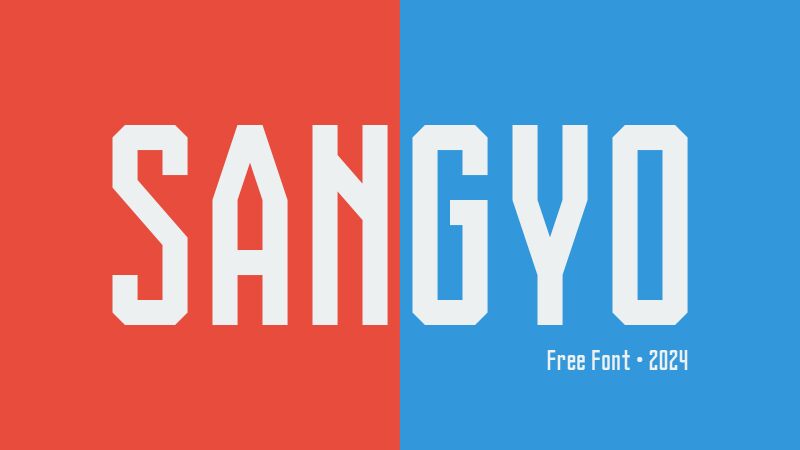
Sangyo Italic font by GGBotNet is a condensed font with an angular, geometric, and futuristic style. Its modern and assertive design gives it a strong presence, making it a standout choice for innovative visual projects. This free techno display font combines precision with boldness, creating distinct aesthetics which grabs viewer attention at once.
Excellent for posters, web pages, book covers and more; Sangyo also fits into branding design such as logos and packaging. Use Sangyo in your game interfaces and applications or in technical annotations where concise communication is key. Get professional results for business cards and magazines but also diplays alike – bot online or offline!